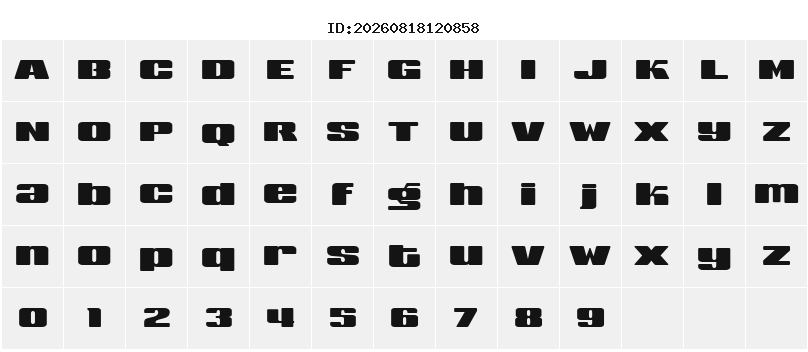
Sneakers UltraWide Biform Preview
• Font Name: Sneakers UltraWide Biform
• Full Font Name: Sneakers UltraWide Biform
About Sneakers UltraWide Biform.ttf
Sneakers UltraWide Biform.ttf is a modern, elegant sans-serif font designed for ultimate readability and visual harmony. Perfect for branding, headlines, web design, and print materials.